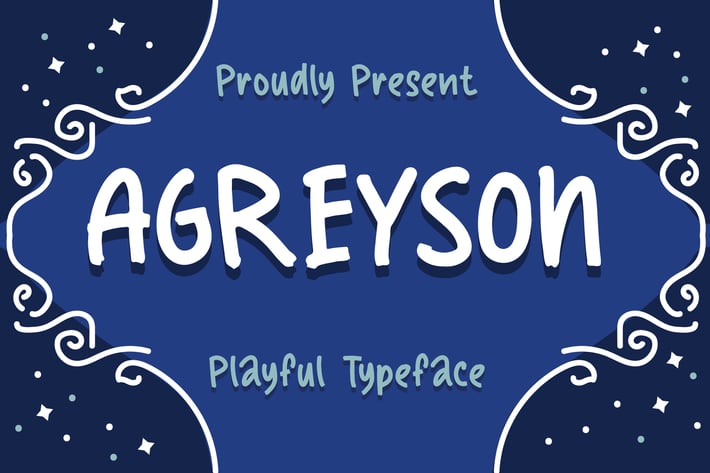
Agreyson - A Handmade Playful Typeface
So beautiful on invitation like greeting cards, branding materials, business cards, quotes, posters, and more!